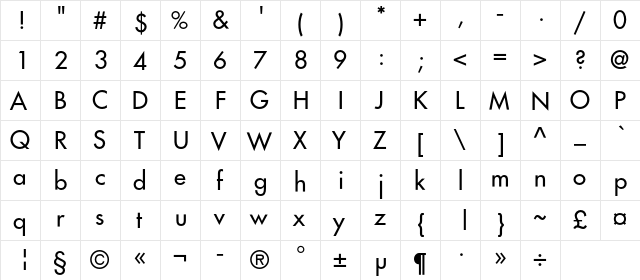
FavoritC Regular
Design Context for FavoritC Typeface
FavoritC takes a measured approach to typography — its balanced proportions and neutral character make it a reliable workhorse for both digital and print work.
Pro Tip: Pair FavoritC with a font of contrasting weight or personality to build a more expressive typographic hierarchy.